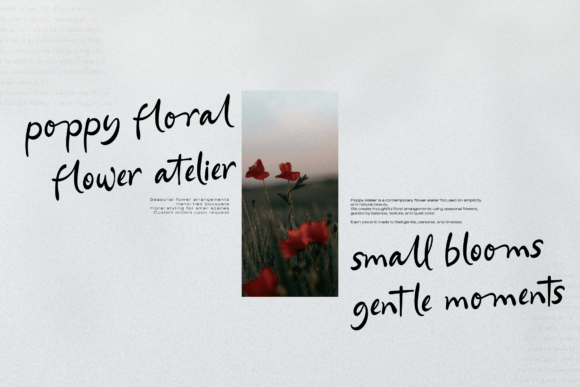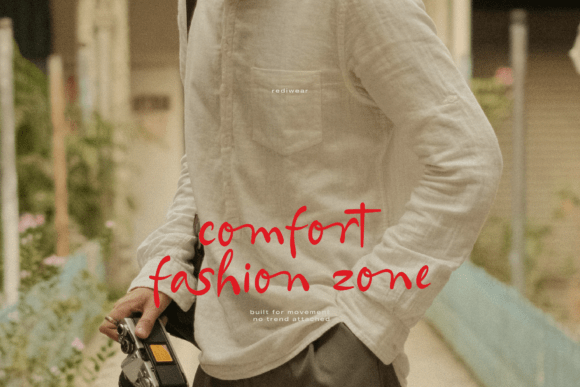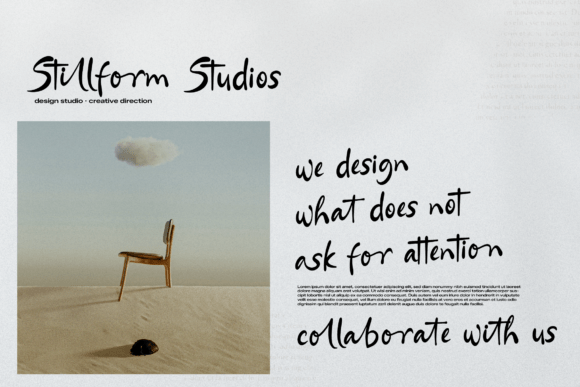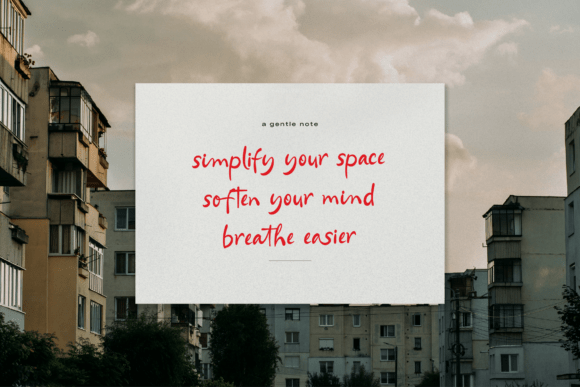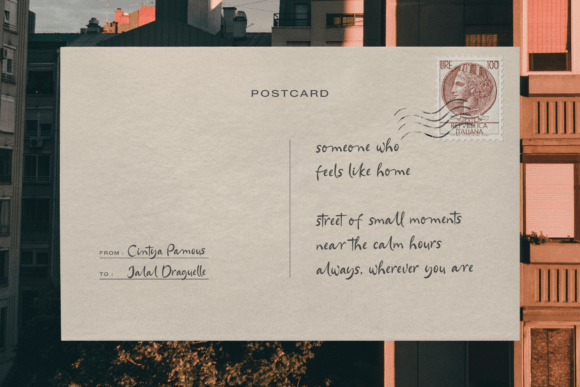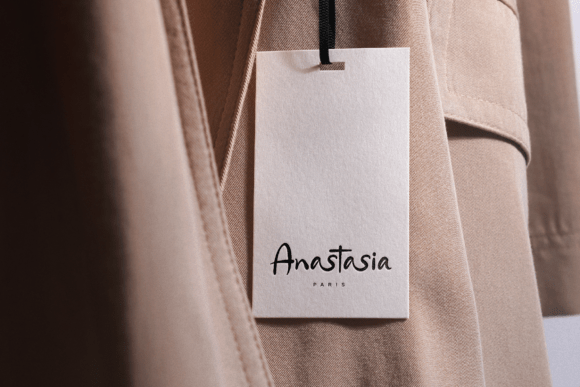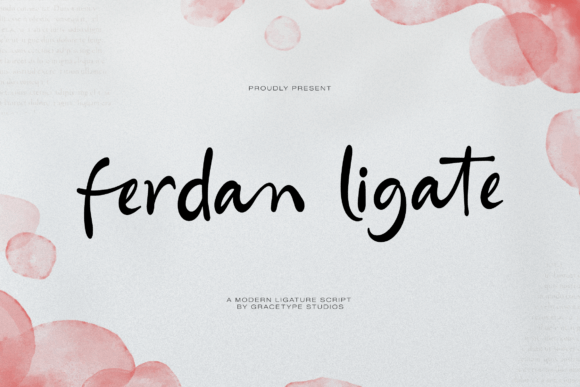
Ferdan Ligate Font: Elevate Your Designs with a Handwritten Touch
In the world of typography, a well-crafted font can make all the difference in elevating your designs to the next level. For designers and crafters looking for a stylish, intimate, and effortlessly cool handwritten touch, Ferdan Ligate Font is an excellent choice. This contemporary, expressive, and fluid ligature script font is designed to bring a natural, hand-drawn flow to your projects, making it perfect for modern branding, lifestyle social media content, personalized stationery, fashion photography watermarks, and more.
The Characteristics of Ferdan Ligate Font
Ferdan Ligate Font boasts medium-weight strokes with a relaxed, slightly irregular rhythm, giving it an authentic and organic personality. The font features smooth, creative ligatures that seamlessly connect characters, providing a custom-lettered aesthetic. This unique characteristic makes Ferdan Ligate stand out from other fonts, as it mimics the natural flow of handwriting. The ligatures are carefully crafted to create a sense of fluidity, making the text feel more dynamic and engaging.
What Makes Ferdan Ligate Font Special?
So, what sets Ferdan Ligate apart from other script fonts? Here are a few key features that make it a standout:
- Natural, hand-drawn flow: Ferdan Ligate’s irregular rhythm and medium-weight strokes give it a genuine, handwritten feel that’s perfect for designs that require a personal touch.
- Smooth, creative ligatures: The font’s ligatures are designed to seamlessly connect characters, creating a custom-lettered aesthetic that’s both stylish and sophisticated.
- Authentic and organic personality: Ferdan Ligate’s unique characteristics make it feel more like a handwritten font than a traditional typeface.
Perfect for Modern Branding and Design Projects
Ferdan Ligate Font is an excellent choice for a wide range of design projects, including:
- Modern branding: Add a touch of personality to your brand with Ferdan Ligate’s unique, handwritten aesthetic.
- Lifestyle social media content: Elevate your social media posts with a stylish, engaging font that’s sure to grab attention.
- Personalized stationery: Create custom stationery that feels truly personal with Ferdan Ligate’s natural, hand-drawn flow.
- Fashion photography watermarks: Add a touch of sophistication to your fashion photography with Ferdan Ligate’s elegant, cursive script.
Why Choose Ferdan Ligate Font?
With so many fonts to choose from, why should you choose Ferdan Ligate? Here are just a few reasons:
- Unique and stylish: Ferdan Ligate’s distinctive characteristics make it a standout in the world of typography.
- Versatile: This font is perfect for a wide range of design projects, from modern branding to personalized stationery.
- Easy to read: Despite its handwritten aesthetic, Ferdan Ligate is surprisingly easy to read, making it perfect for body text and headlines.
In conclusion, Ferdan Ligate Font is a versatile, stylish, and unique ligature script font that’s perfect for designers and crafters looking to add a touch of personality to their designs. With its natural, hand-drawn flow, smooth creative ligatures, and authentic organic personality, Ferdan Ligate is sure to elevate your designs to the next level. Whether you’re working on modern branding, lifestyle social media content, personalized stationery, or fashion photography watermarks, Ferdan Ligate Font is an excellent choice.